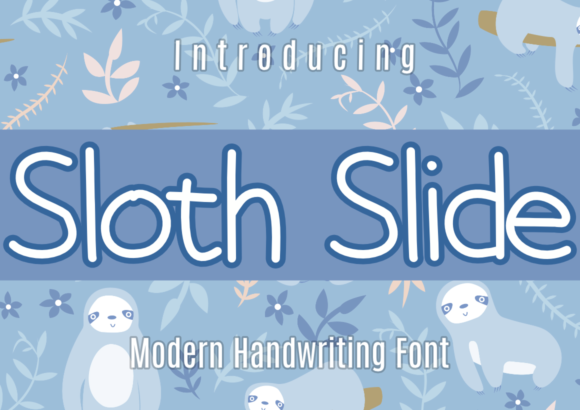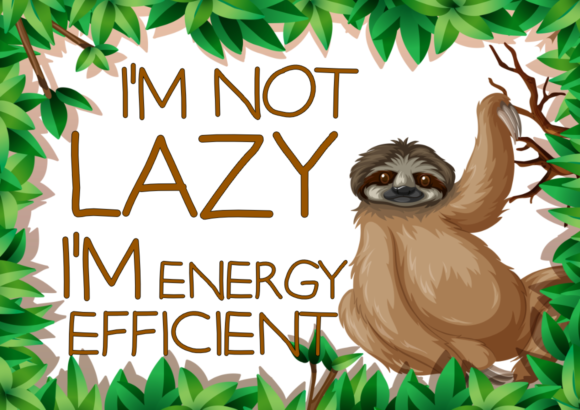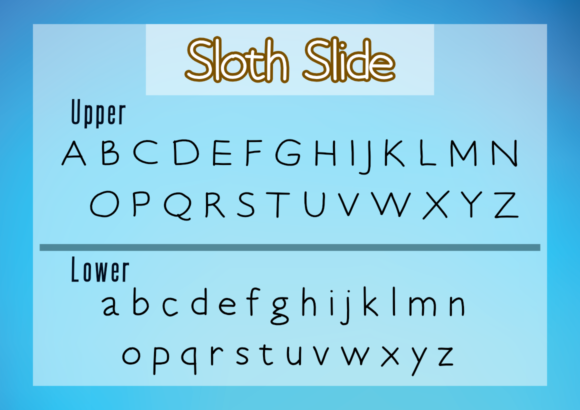
Sloth Slide Font
About Sloth Slide Font
Sloth Slide is a cute and modern handwritten font with an incredibly friendly feel. This enchanting handwritten font will turn any creative idea into a true standout. Whether you’re looking for fonts for Instagram or calligraphy scripts for DIY projects, this font will turn your design project into a true piece of art!